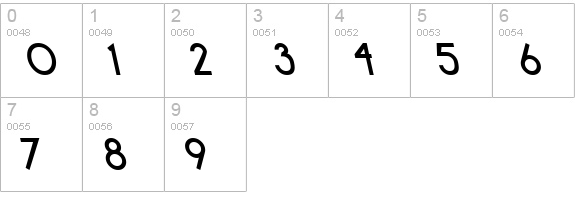
Endangered font is a unique and captivating typeface that is inspired by the beauty of endangered species around the world. With its intricate details and elegant design, this font is perfect for adding a touch of sophistication to any project. What makes Endangered font even more special is that it is available for free download at FontsMarket.com. This means that you can easily access this stunning font and use it in your designs without any cost. Whether you are working on a poster, logo, or any other creative project, Endangered font is sure to make a statement and leave a lasting impression. Embrace the beauty of endangered species and elevate your designs with this remarkable font, all while enjoying the convenience of it being freely available for download.